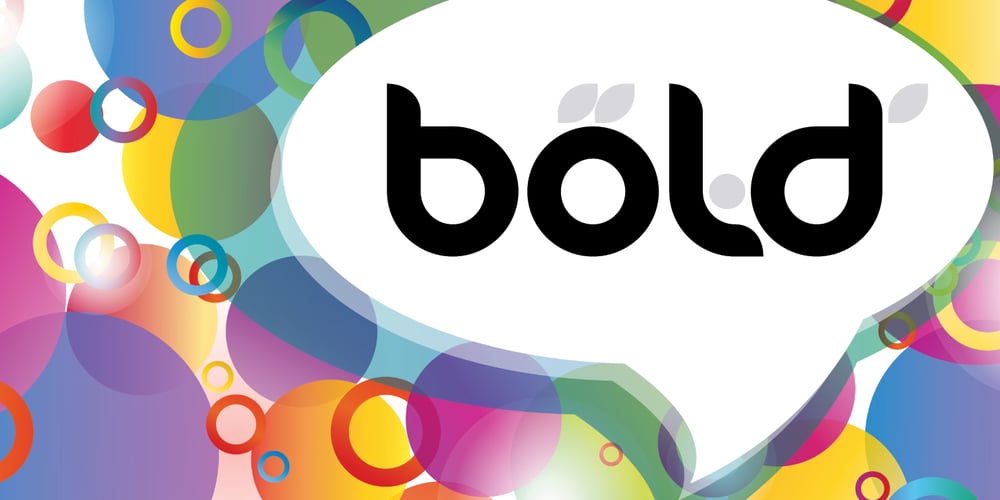
Danube Pro Font Family was designed by Roger S. Nelsson, Levente Halmos and published by CheapProFonts. Danube Pro contains 3 styles and family package options. This cool techno font is easily recognizable with its quite unique stroke endings. I have increased the ascenders and descenders slightly (so they would work better with the new diacritic letters) and introduced a few alternate letterforms in addition to generally expanding the character set. A totally enjoyable reworking of an original design. Now also with a Bold and a brand new Light variant! Please note that these variants are made by adding/removing from the regular shape, so the letters no longer sits on the baseline. ALL fonts from CheapProFonts have very extensive language support: They contain some unusual diacritic letters (some of which are contained in the Latin Extended-B Unicode block) supporting: Cornish, Filipino (Tagalog), Guarani, Luxembourgian, Malagasy, Romanian, Ulithian and Welsh. They also contain all glyphs in the Latin Extended-A Unicode block (which among others cover the Central European and Baltic areas) supporting: Afrikaans, Belarusian (Lacinka), Bosnian, Catalan, Chichewa, Croatian, Czech, Dutch, Esperanto, Greenlandic, Hungarian, Kashubian, Kurdish (Kurmanji), Latvian, Lithuanian, Maltese, Maori, Polish, Saami (Inari), Saami (North), Serbian (latin), Slovak(ian), Slovene, Sorbian (Lower), Sorbian (Upper), Turkish and Turkmen. And they of course contain all the usual “western” glyphs supporting: Albanian, Basque, Breton, Chamorro, Danish, Estonian, Faroese, Finnish, French, Frisian, Galican, German, Icelandic, Indonesian, Irish (Gaelic), Italian, Northern Sotho, Norwegian, Occitan, Portuguese, Rhaeto-Romance, Sami (Lule), Sami (South), Scots (Gaelic), Spanish, Swedish, Tswana, Walloon and Yapese.